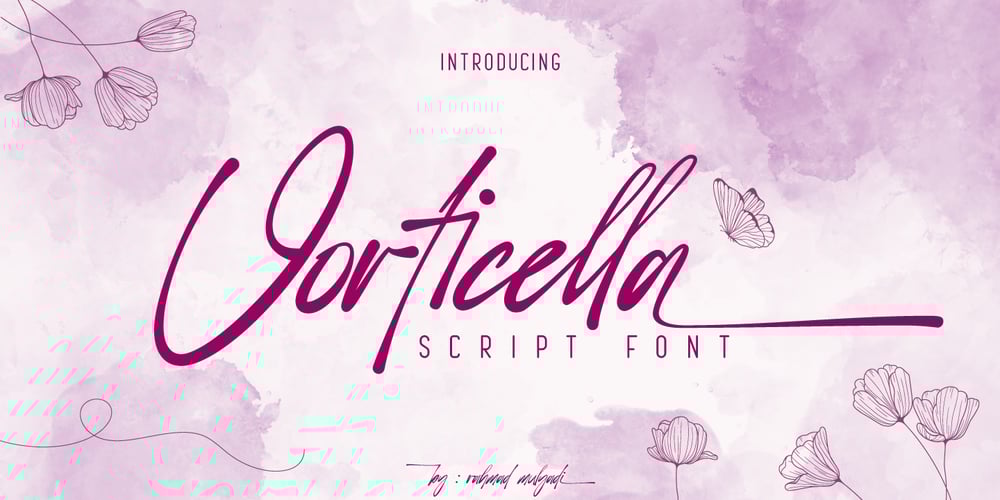
Vorticella Font Family was designed by Rahmad Mulyadi and published by BaronWNM. Vorticella contains 1 styles and family package options. Thank you for visiting our item. vorticella is a hand-scratched script font that gives a natural-looking impression that is perfect for those of you who want to use a script-style font. vorticella is very suitable for writing product labels, printing t-shirts, greeting cards, invitation cards, etc. vorticella has several ligatures, alternates, and swashes to give a sweet touch at the beginning and end of words.